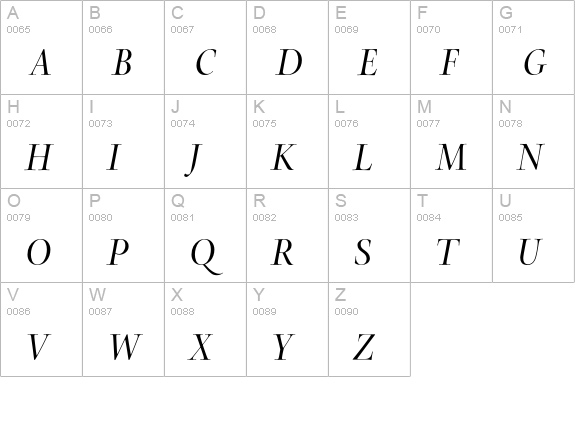
Arepo Std Italic Font Details
Arepo Std Italic is a distinctive, italic variant in the Arepo typeface family \xE2\x80\x94 well suited to design and typography projects.
Arepo Std Italic font is a beautifully designed typeface that exudes elegance and sophistication. Its sleek and stylish italicized letterforms make it perfect for adding a touch of grace to any design project. The flowing curves and delicate strokes of this font create a sense of movement and fluidity, making it a versatile choice for both print and digital applications. What sets Arepo Std Italic font apart is that it is available for free download at FontsMarket.com. This means you can easily access and use this stunning font in your projects without any cost. Whether you're working on a branding project, editorial layout, or web design, Arepo Std Italic font is sure to elevate your work with its timeless charm and modern appeal. Download it today and add a touch of sophistication to your designs.